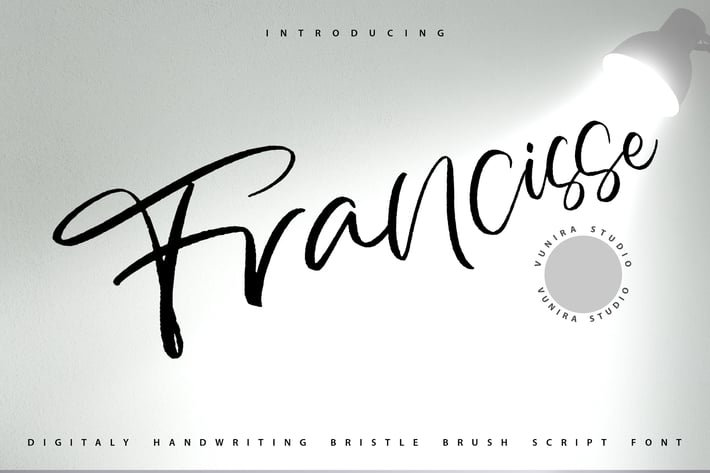
Francisse | Handwriting Brush Script Font
Francisse | Handwriting Brush Script Font with a calligraphy style, So beautiful on invitation like greeting cards, branding materials, business cards, quotes, posters, and more!